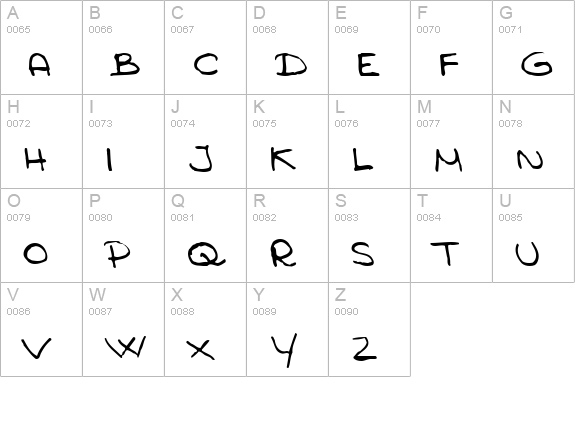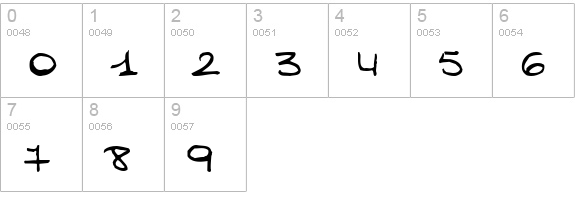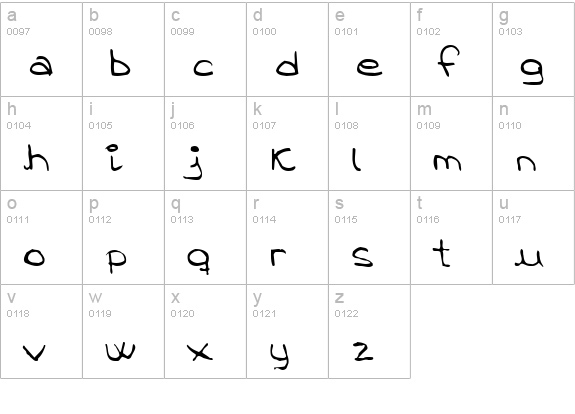
Introducing Anmari font, a captivating and elegant typeface that exudes sophistication and modernity. With its sleek lines and stylish curves, Anmari is perfect for adding a touch of class to any design project. This versatile font is ideal for branding, logos, invitations, headers, and so much more. The best part? Anmari font is completely free to download at FontsMarket.com. Yes, you read that right - you can elevate your designs with this stunning font without spending a dime. Don't miss out on the opportunity to enhance your creations with the timeless beauty of Anmari font. Download it now and let your creativity soar!